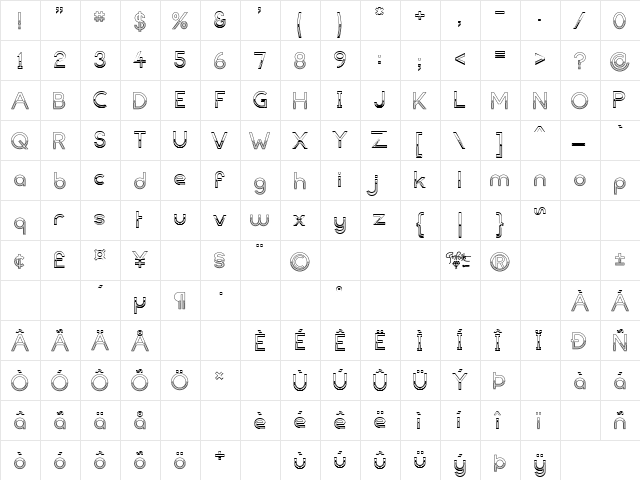
Dark Bastion Unfilled Regular
Design Context for Dark Bastion Unfilled Typeface
Dark Bastion Unfilled offers clean, dependable letterforms without strong stylistic allegiance, making it a practical choice for designers who need flexibility.
Pro Tip: Use Dark Bastion Unfilled in both headline and body roles to test its range before committing to a single application.